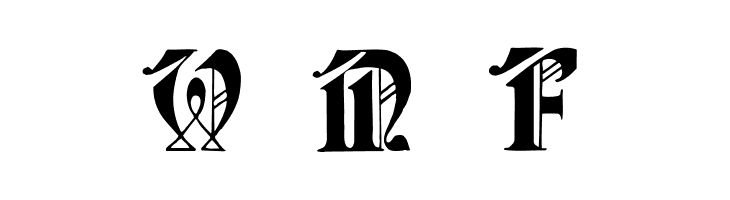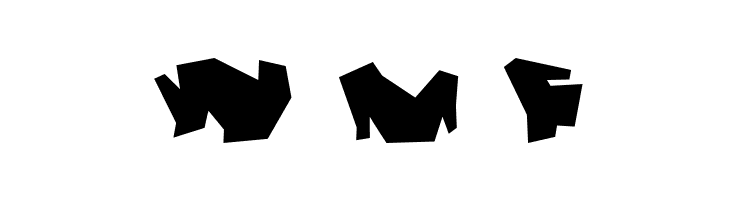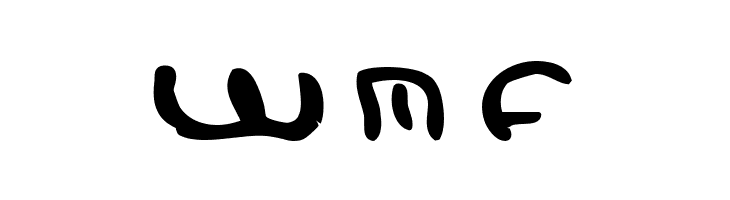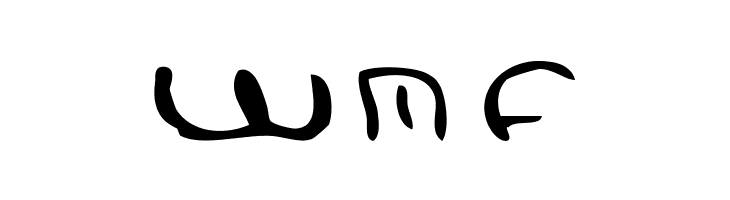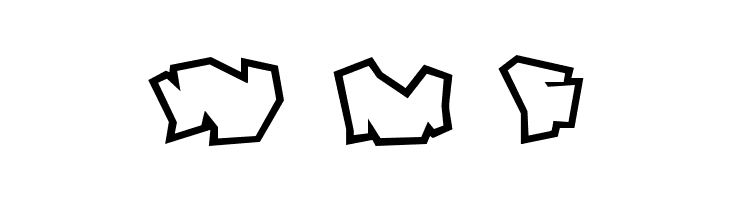
• Dohong Kaliba Free Version
• DolbyFraxCaps
A decorative and intricate font with Gothic-inspired embellishments.
• DomesticAnimals
Cartoon animal dingbat font with playful illustrations.
• Domillion Brush Free
A dynamic brush script font with fluid, expressive strokes.
• Don Giovonni
A distressed, grunge-style font with a bold, textured appearance.
• Don Giovonni Makin Enemies
A distressed, grunge-style font with a rough, textured appearance.
• Don Moise St
A modern, geometric font with a monospaced appearance and consistent stroke width.
• Don't Bug Me JL
A whimsical decorative font with cartoon bug characters.
• Done Perfectly FREE
A lively and expressive script font with fluid, connected letterforms.
• DongbutsBeings
A playful and whimsical font with anthropomorphic figures and bold numbers.
• DongbutsBeings-Oblique
A whimsical, animated font with characters featuring legs and playful designs.
• Donner
A sketch-like, hand-drawn font with irregular lines and dynamic strokes.
• Donree's Claws
An edgy, claw-inspired font with sharp, dramatic detailing.
• Doodle Dudes of Doom
Hand-drawn doodle font with cartoon faces for each character.
• DoodlesWritten
A playful, hand-drawn font with sketch-like, whimsical strokes.
• Doodolonomy Fred
A playful, handwritten font with a casual and informal style.
• DooM
• dopdip
A bold, geometric font with a futuristic and enclosed design.
• Dopil
• Dortmund
• Dortmund Outline
A bold, graffiti-inspired outlined font with angular, geometric characters.
• Dos Campos
A playful, handwritten font with bold, dynamic strokes and a creative flair.
• Dos Campos Blod